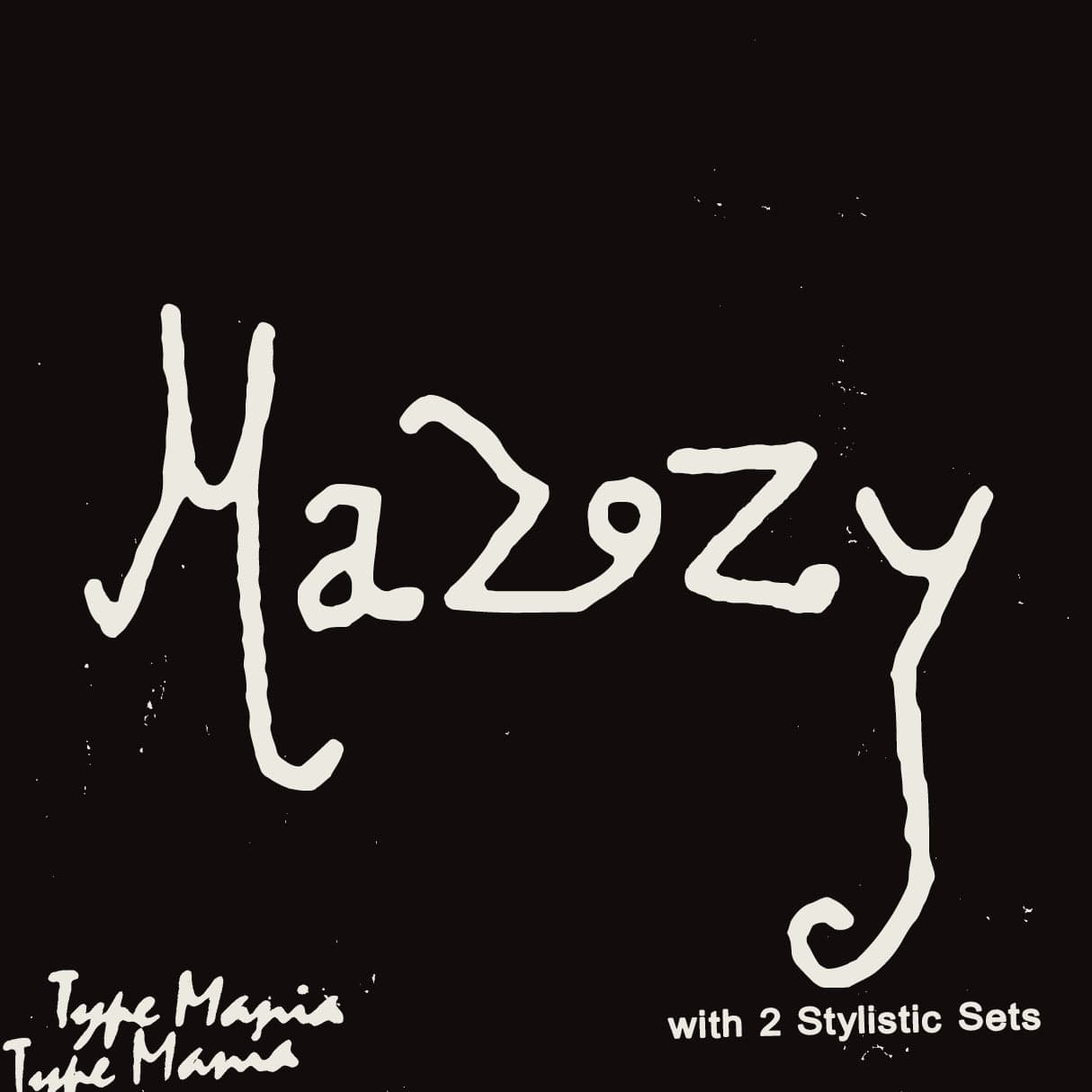
<p>Meet <strong>Mazzy TM</strong> – the script channeling the underground spirit of the 80s and 90s alternative scene. Whether you're designing merchandise or event flyers, <strong>Mazzy TM</strong> is guaranteed to deliver.</p> <p><strong>Zip includes</strong></p> <ul> <li>OTF file</li> <li>TTF file</li> <li>WOFF2 file</li> </ul> <p><strong>OpenType features</strong></p> <ul> <li>2 stylistic sets</li> <li>The font is programmed to automatically shift between the stylistic sets whenever the same glyphs are typed side by side</li> </ul> <p><strong>Languages</strong></p> <ul> <li>Basic Latin</li> <li>Western European</li> <li>Euro</li> <li>Central European</li> <li>Pan African Latin</li> <li>389 glyphs</li> </ul> <p><em>Graphic Design is Easy (with Type Mania)®</em></p>